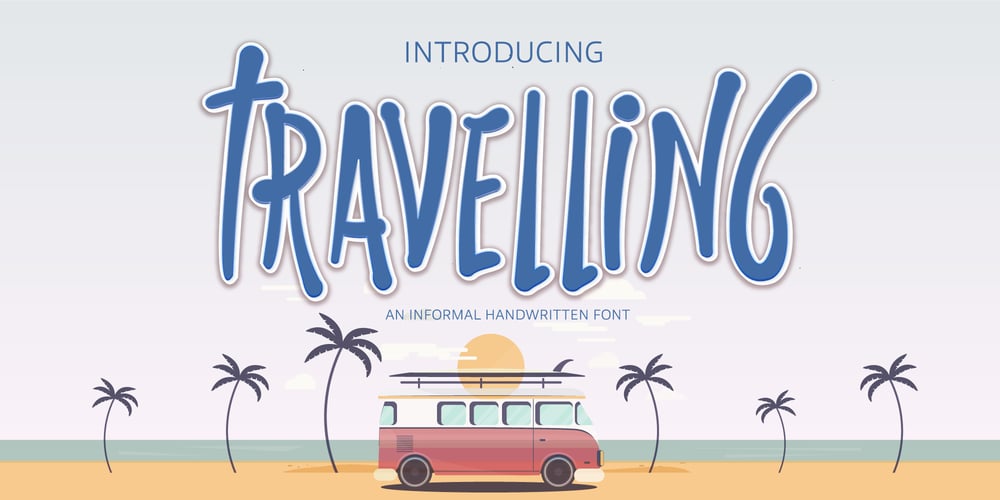
Travelling Font Family was designed by Ake Thanantreesak and published by Ake. Travelling contains 1 styles and family package options. Travelling is a captivating display font designed to ignite wanderlust. Perfect for book covers, logos, and lettering, its bold and expressive design adds an enchanting touch to your creative projects. Embark on a typographic journey with “Travelling” and let your designs explore new horizons.